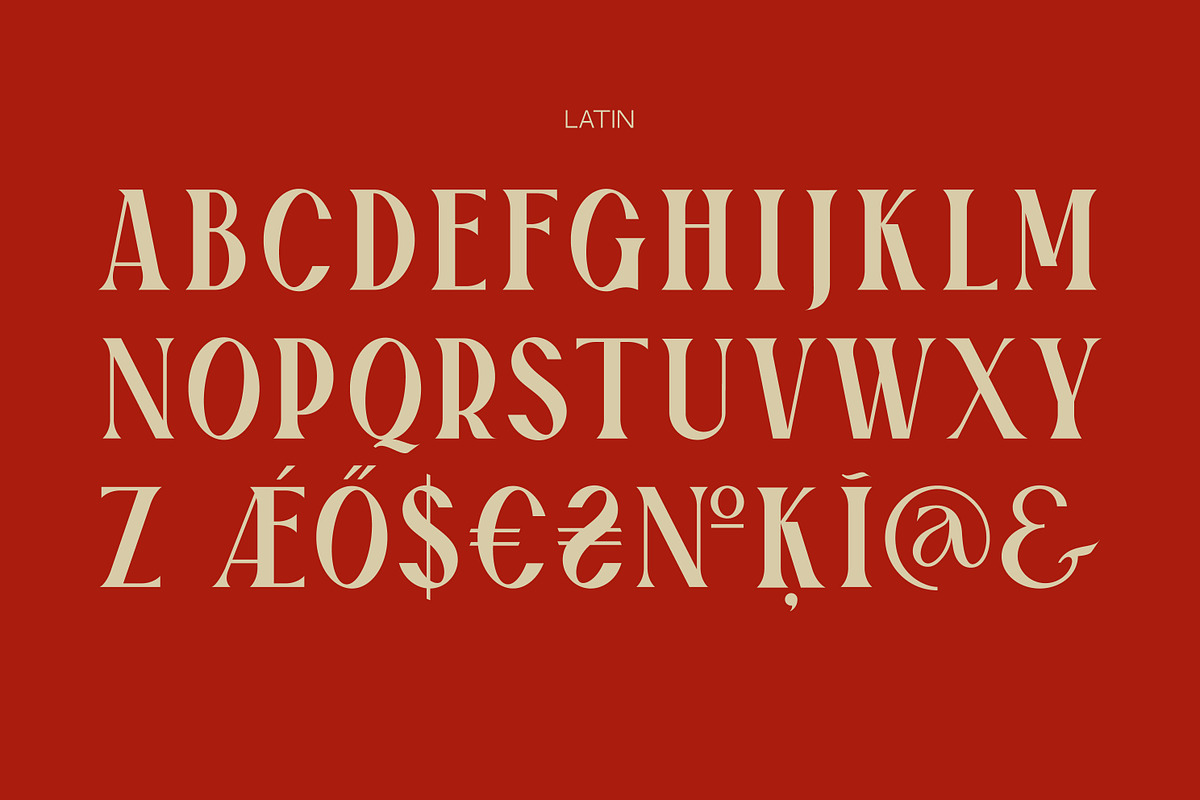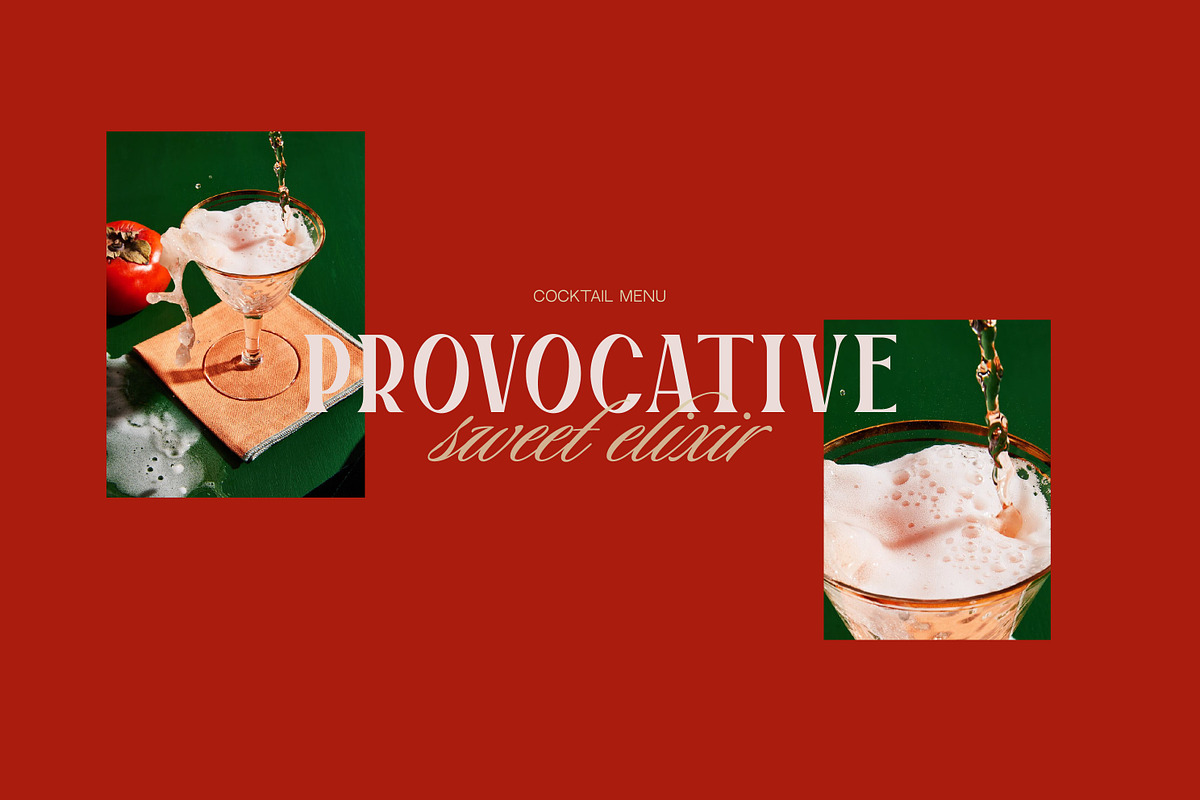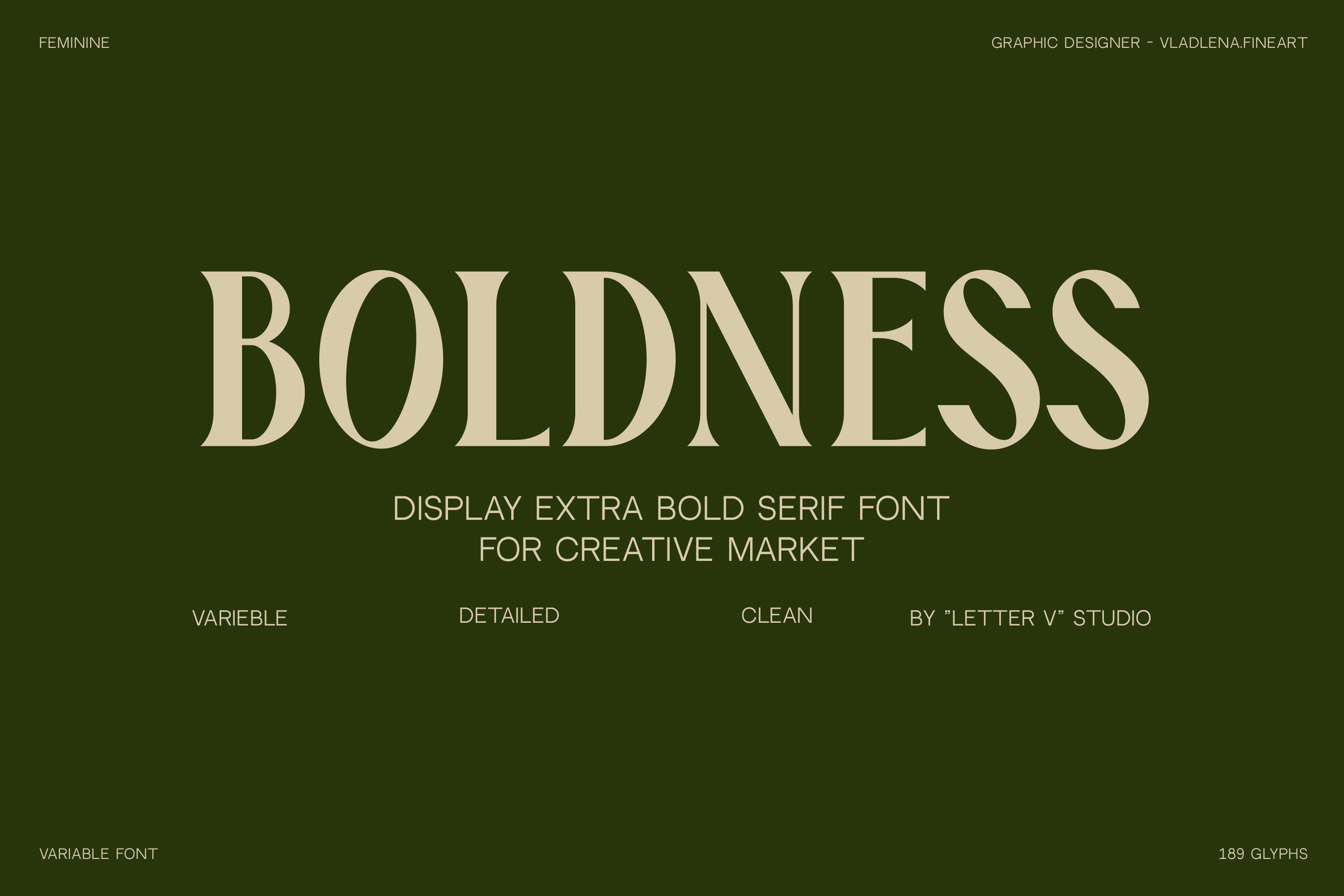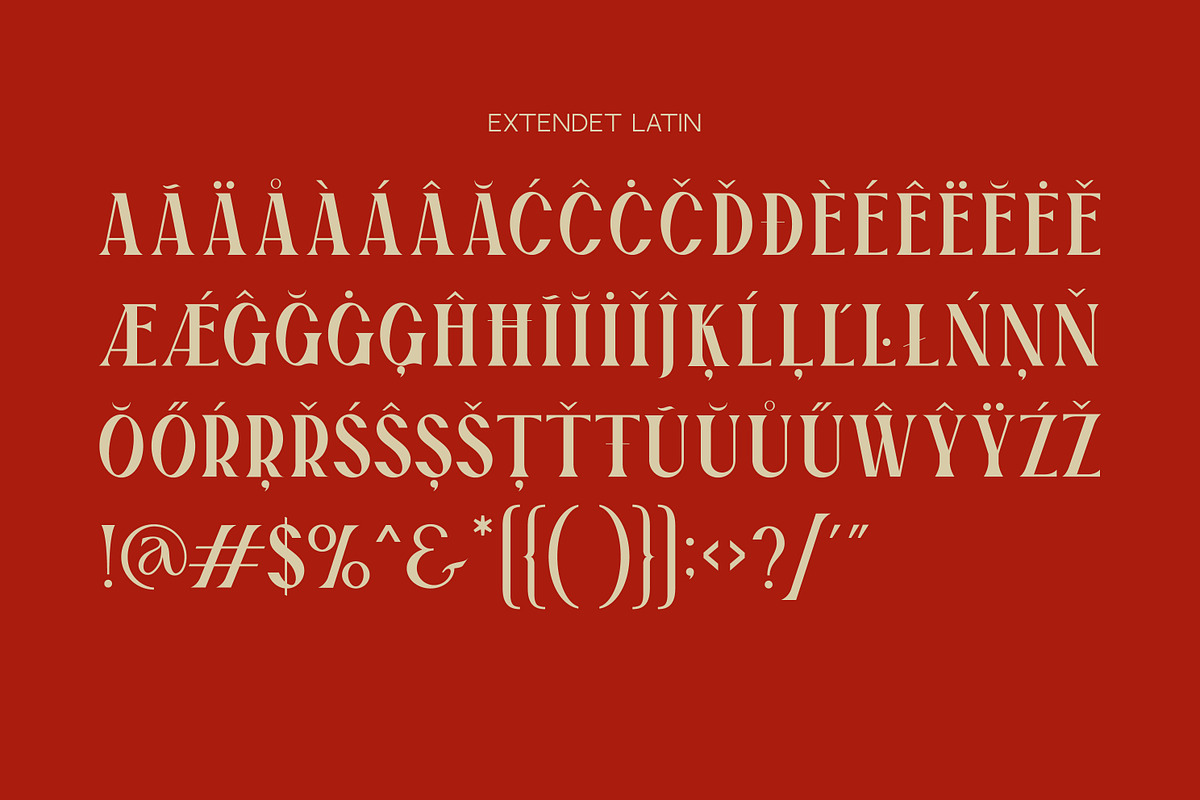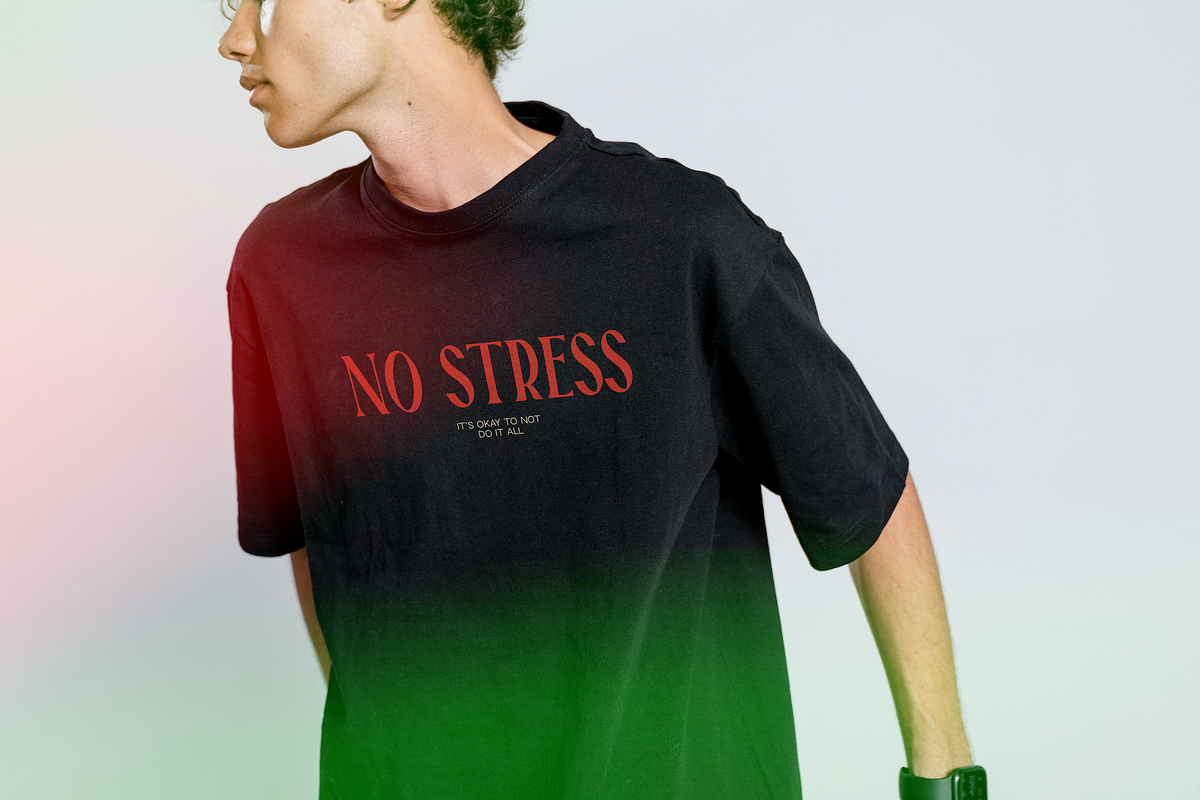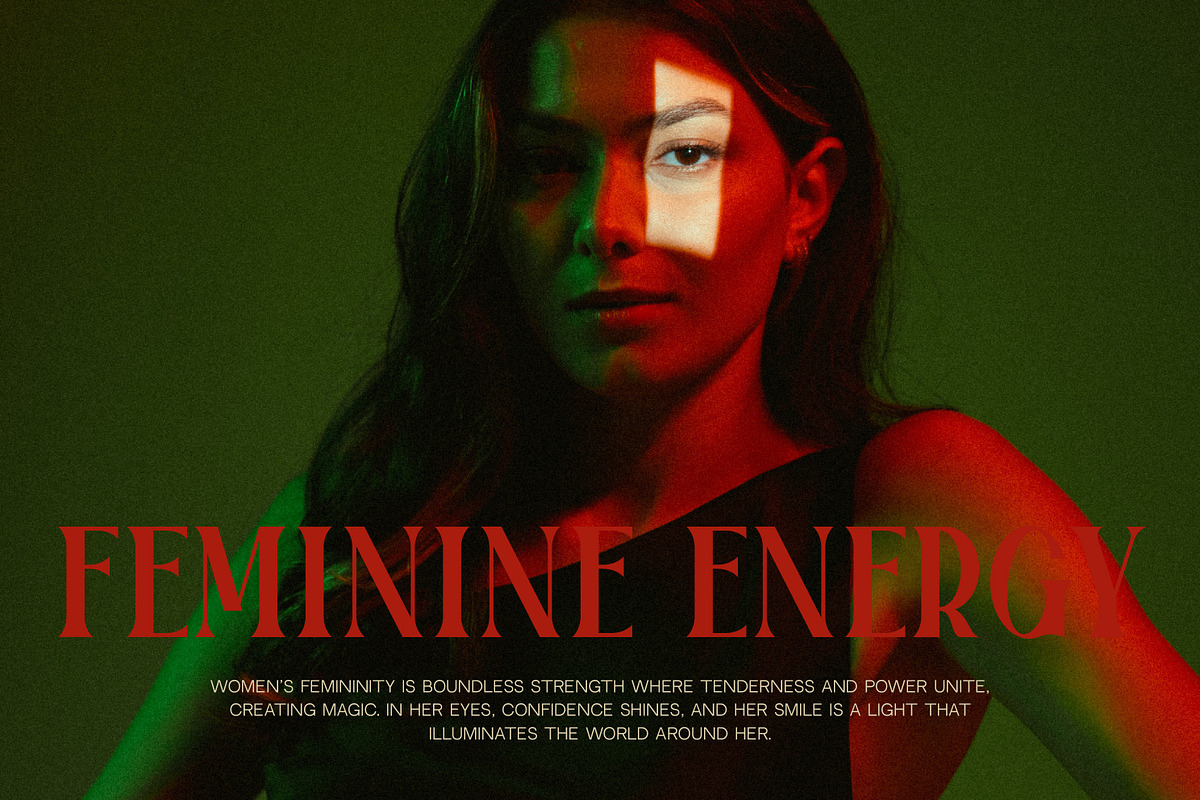
Boldness font / display serif font
BOLDNESS FONT is a display extra bold serif font.
The significant contrast between thin and thick lines, along with the elongated upward shape, lends confidence to the letters and creates an interesting rhythm. These letters reflect both boldness and tenderness simultaneously, making them suitable for minimalistic feminine design as well as decorative elegant styles.